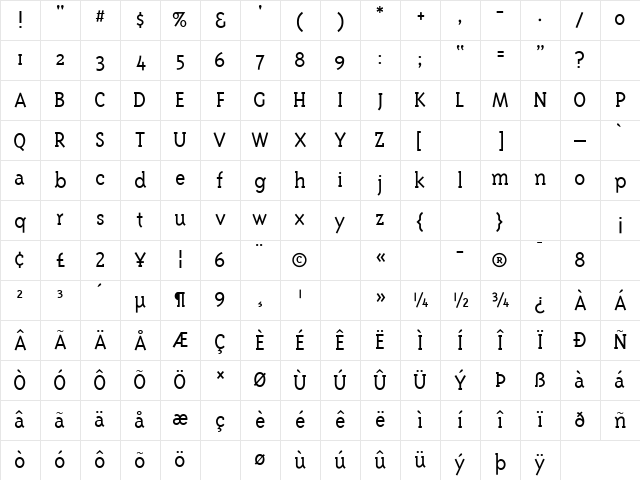
Complete TriplexSerifLight Medium glyph index. Displaying only characters natively supported by TriplexSerifLight Medium font.
TriplexSerifLight carries the refined structure of traditional serif typography, with bracketed terminals and considered proportions that communicate credibility and craft. Its slender proportions lend an understated elegance to any composition.
Pro Tip: Use TriplexSerifLight with generous line-spacing for the most refined reading experience - its light weight benefits from room between lines.